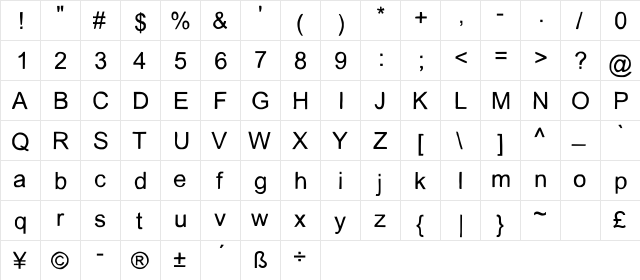
Slice Regular
| Foundry | Monotype Typography |
| Designer | Monotype Type Drawing Office - Robin Nicholas, Patricia Saunders 1982 |
Design Context for Slice Typeface
Slice is a composed and adaptable typeface that performs quietly and consistently across a wide range of design contexts.